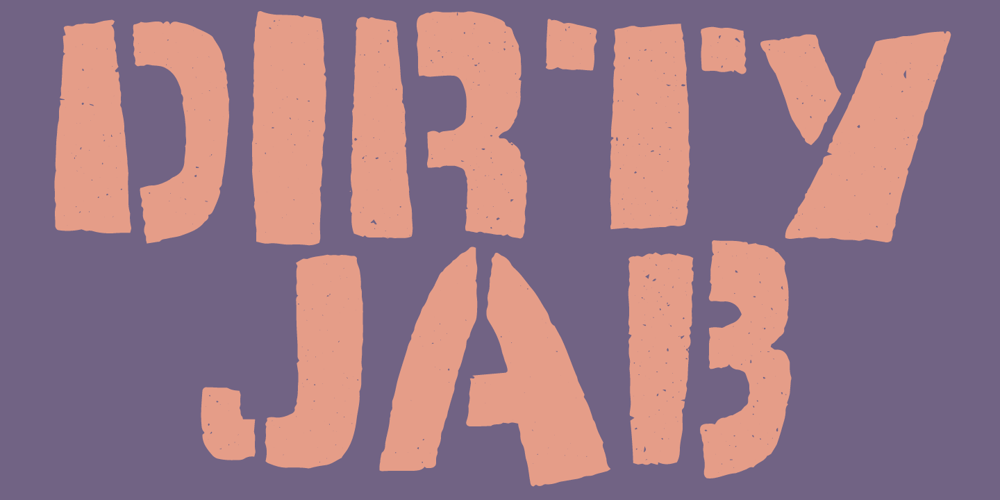
Dirty Jab Font Family was designed by Jakob Fischer and published by PizzaDude.dk. Dirty Jab contains 1 styles and family package options. Using Dirty Jabfor your graphical adventures is like having brunch when being hungry! The surface of the font is actually kind of grunge. Use the font at large sizes with reveal the authentic worn look. Comes with extensive language support and 6 contextual alternates that automatically cycles as you type!